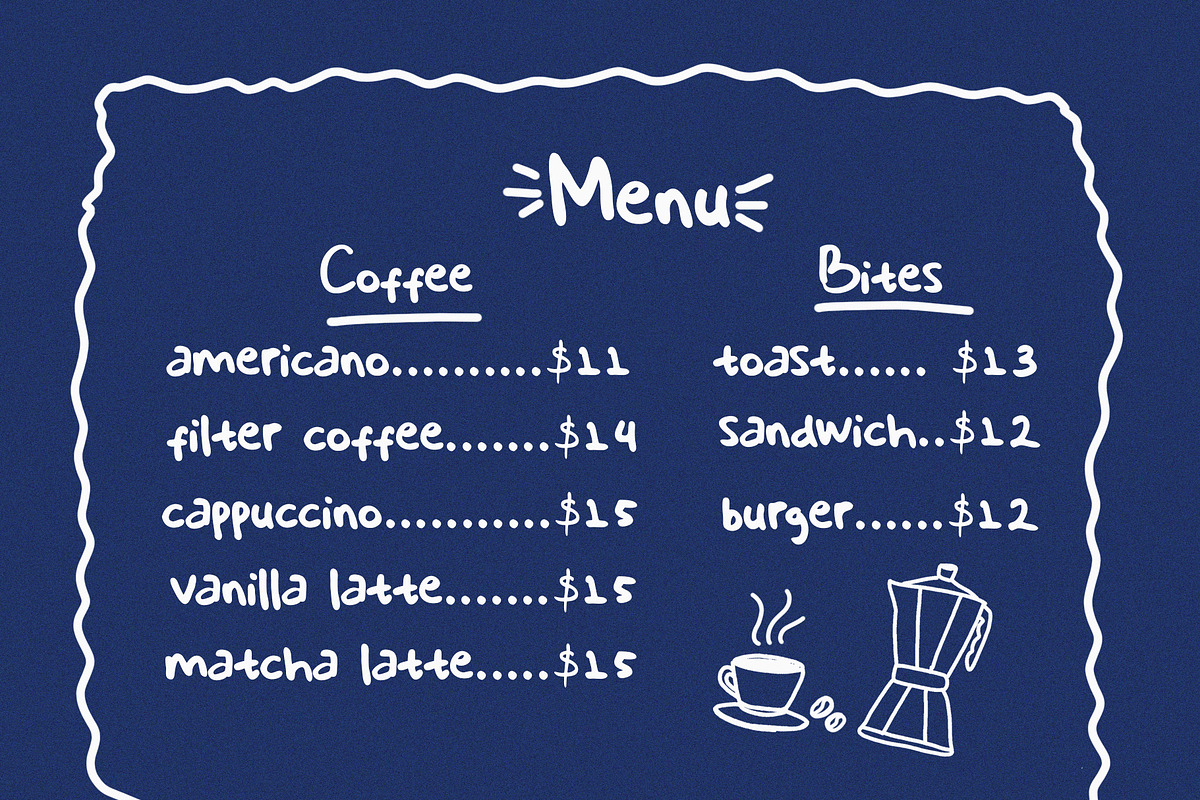
Ordinary People Handwritten Fonts
Ordinary People is a charming handwritten font with a soft, playful personality. Inspired by natural handwriting, this font features rounded shapes, smooth curves, and a friendly appearance that instantly adds warmth and creativity to any design.
Its casual and organic style makes Ordinary People perfect for projects that need a fun, approachable, and human touch. Whether you're designing for digital or print, this font delivers a delightful handcrafted feel.